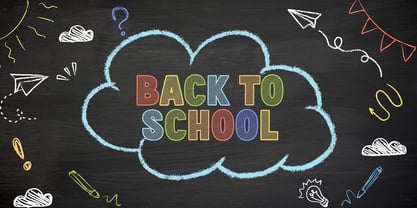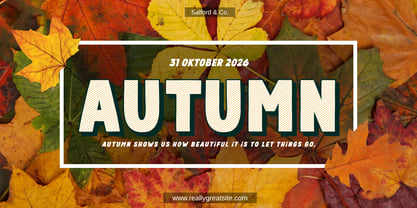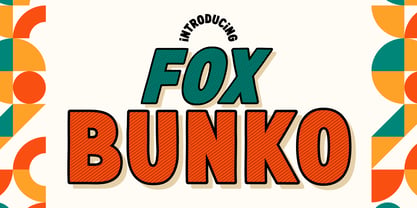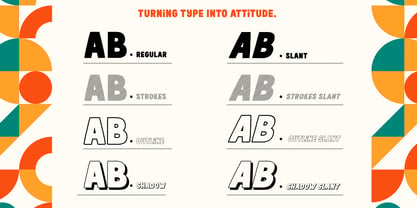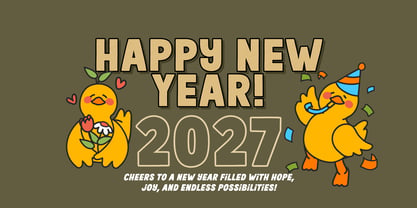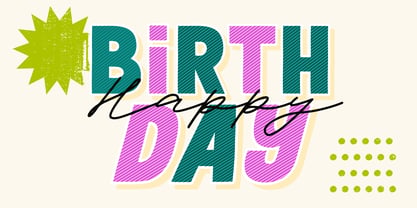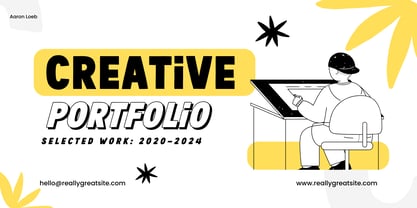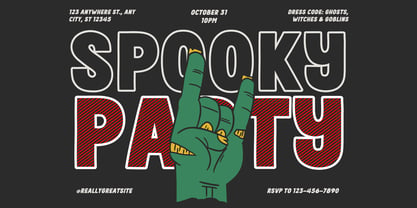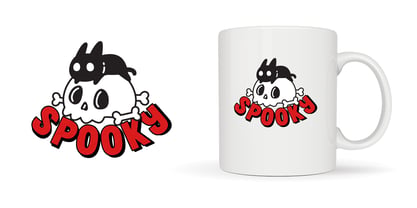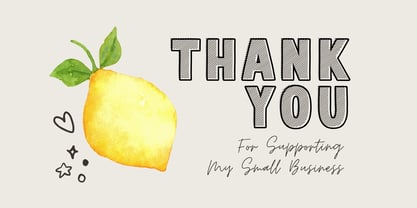
Fox Bunko
by Fox7
The Fox Bunko Font Family was designed by Rattana Rattanawan and published by Fox7. Fox Bunko contains 8 styles and family package options. More about this family
Say hello to Fox Bunko_, a chunky, bold, and energetic display font packed with attitude. _Designed with a fun, retro-modern aesthetic, Fox Bunko comes in 8 versatile styles ranging from solid blocks to textured strokes, outlines, and dynamic slants. It’s the ultimate choice for making your headlines pop, apparel stand out, and craft projects unforgettable!
Whether you’re designing eye-catching stickers, POD (Print on Demand) merchandise, Cricut/Silhouette cutting projects, social media graphics, or playful branding, Fox Bunko delivers instant personality and impact.